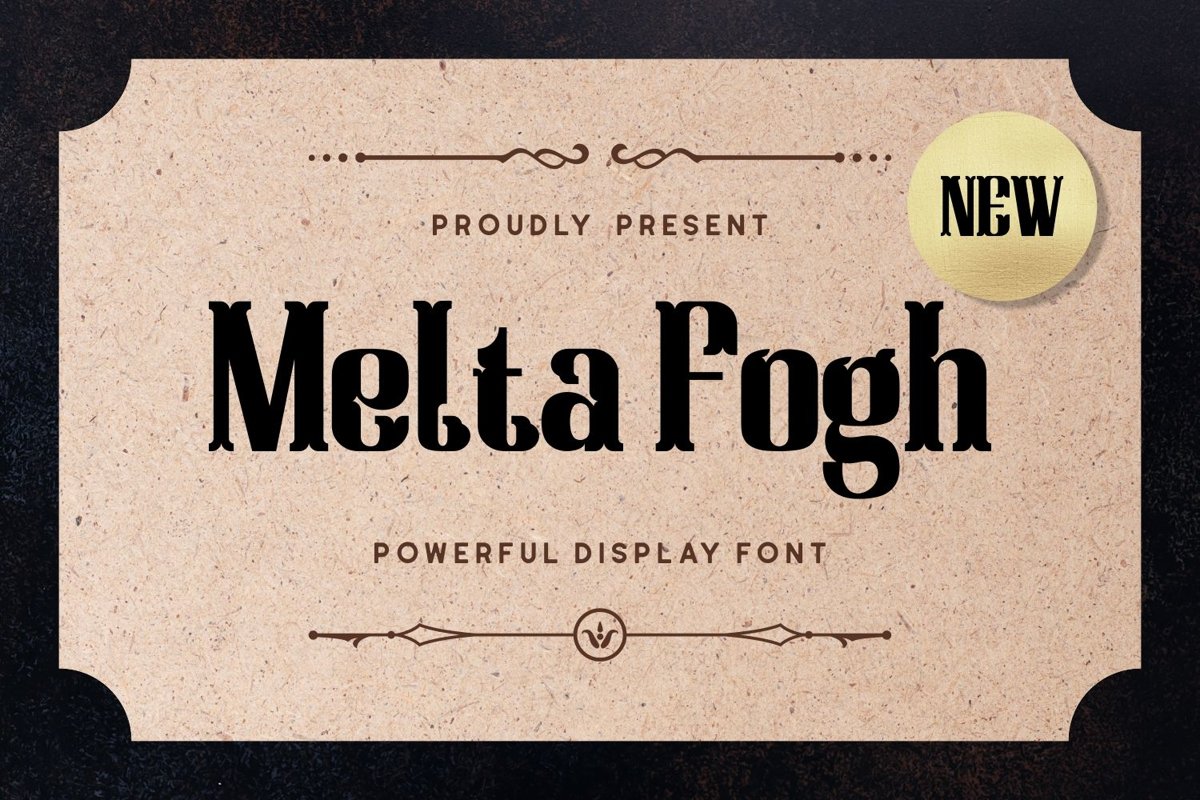
Melta Fogh - Powerful Display Font
Melta Fogh is powerful serif display come with classic themes. This font have unique shape serif characters. It matches applies in some designs such as the logotype, brand, packaging, quotes, poster, shirt, book, badge and more custom design. The features uppercase, lowercase, numeral, punctuation & symbol, multilingual support, PUA encoded (fully accessible without additional design software).